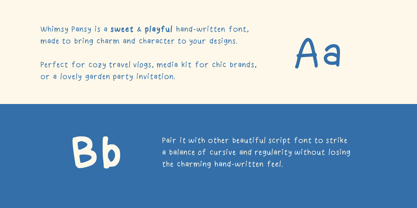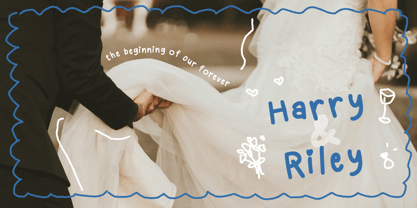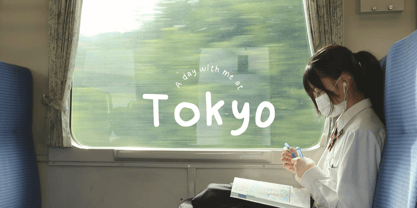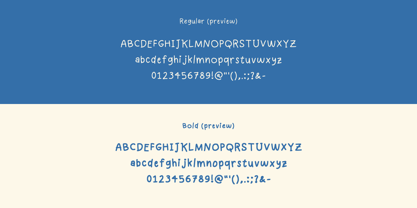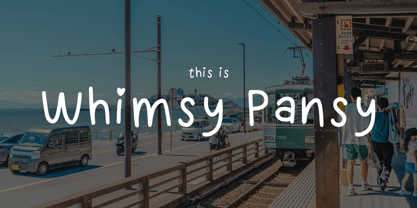
Whimsy Pansy
von Calendulaae Design
Die Schriftfamilie Whimsy Pansy wurde von Aqila Karim entworfen und von Calendulaae Design veröffentlicht. Whimsy Pansy enthält 2 Stile und Familienpaketoptionen. Mehr über diese Familie
A whimsical handwritten font that captures the charm of natural penmanship with a light, airy touch. Its playful curves and sweet personality make it perfect for wedding invitations, greeting cards, children's books, social media graphics, branding, packaging, and other creative projects that call for warmth and whimsy. Whether you're designing something heartfelt or simply looking to add a handcrafted feel, this font brings effortless charm to every word.
Designer: Aqila Karim
Foundry: Calendulaae Design
Calendulaae Design is an independent type foundry creating expressive fonts inspired by hand-crafted aesthetics, organic shapes, and natural forms. Our typefaces are designed for branding, packaging, editorial projects, and creative storytelling, bringing warmth and personality to visual communication. We hope to deliver fonts with versatility and charm to your designs.